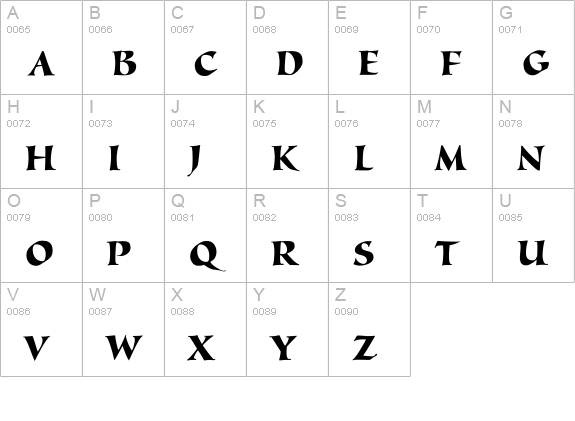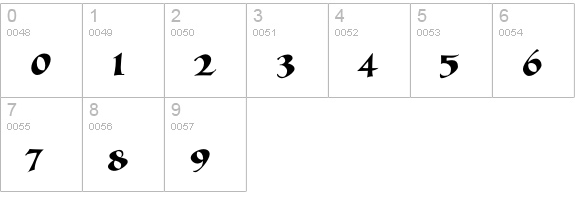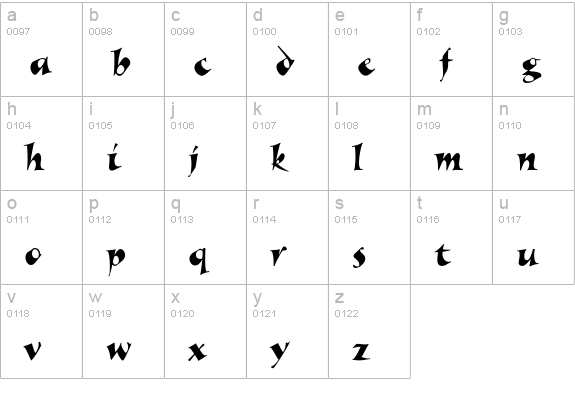
AIAlexia Font Details
AIAlexia font is a modern and elegant typeface that combines sophistication with simplicity. Its sleek lines and balanced proportions make it a versatile choice for a wide range of design projects. The font exudes a sense of professionalism and style, making it perfect for branding, editorial design, and more. What sets AIAlexia font apart is that it is available for free download at FontsMarket.com. This means you can easily access this high-quality font without any cost, allowing you to elevate your designs without breaking the bank. Whether you're a graphic designer, a content creator, or a student looking to add a touch of class to your work, AIAlexia font is a must-have in your font collection. Download it today and start creating stunning visuals that stand out from the rest.